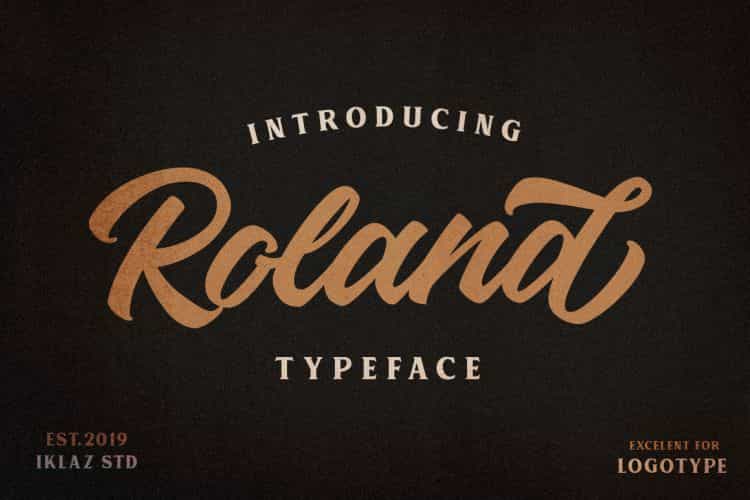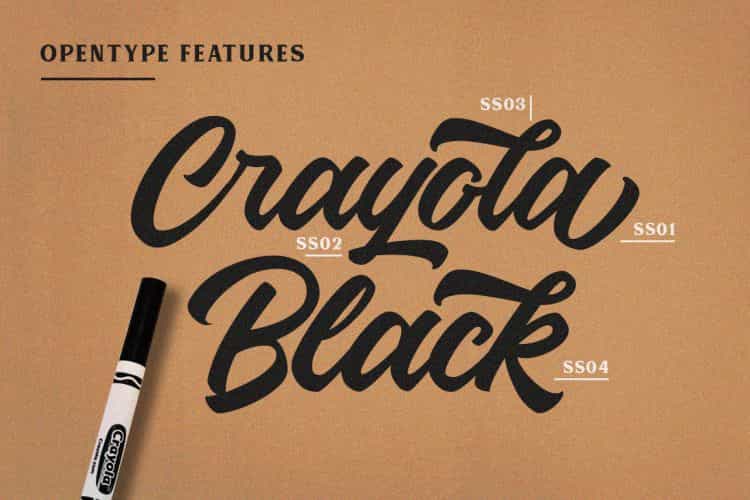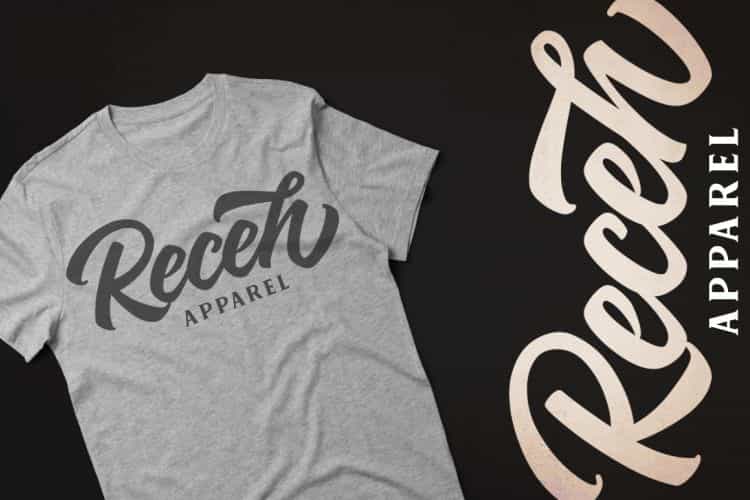
Introducing Roland Script Font! It is produced and distributed by Iklaz Studio. Roland is a Script font that was developed on the basis of my hand lettering style which has retro or vintage looks. This font is just perfect for you creative project as Logotype, Branding, Packaging, Poster, Merchandise and label etc. RolandTypeface has a standard character, numeral, punctuation and also stylistic set, alternates and ligatures which will help you customise your designs.